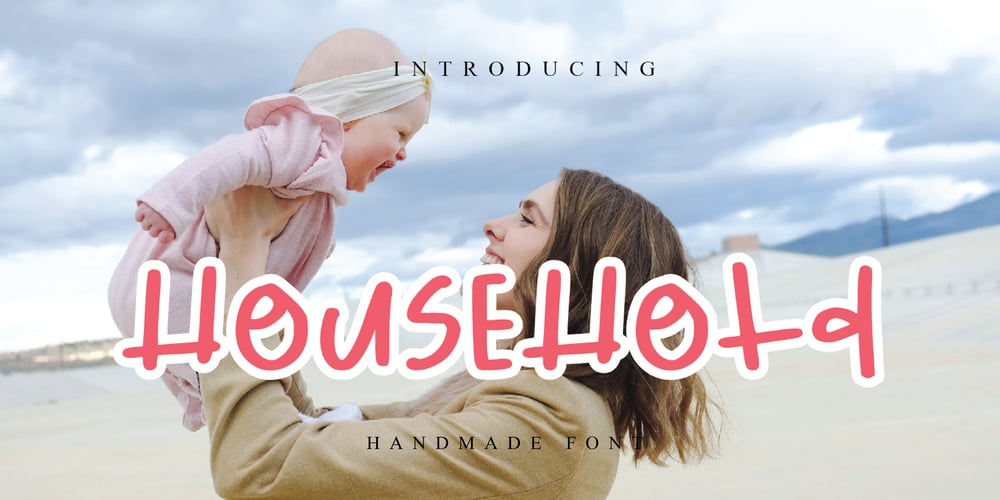
Household Font Family was designed by Mariyana and published by Goodigital13. Household contains 1 styles and family package options. font suitable for logo, branding, greeting card, poster and any design that you create.andwritten font is a natural & modern handwritten font. I’ts Perfect for logo, invitation, stationery, wedding designs, social media posts, advertisements, product packaging, product designs, label, photography, watermark, special events or anything.